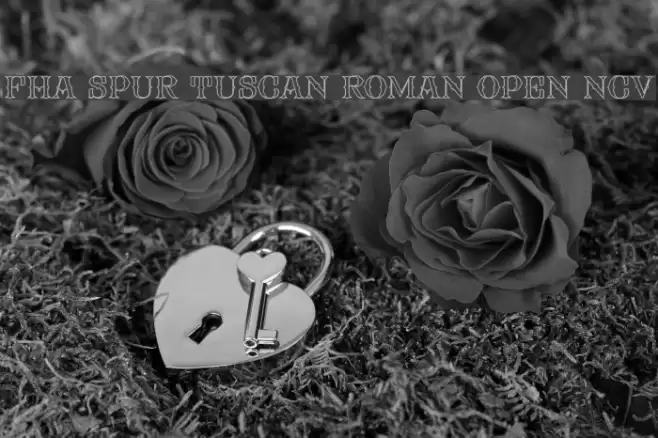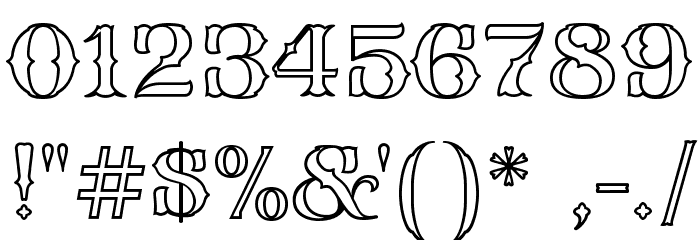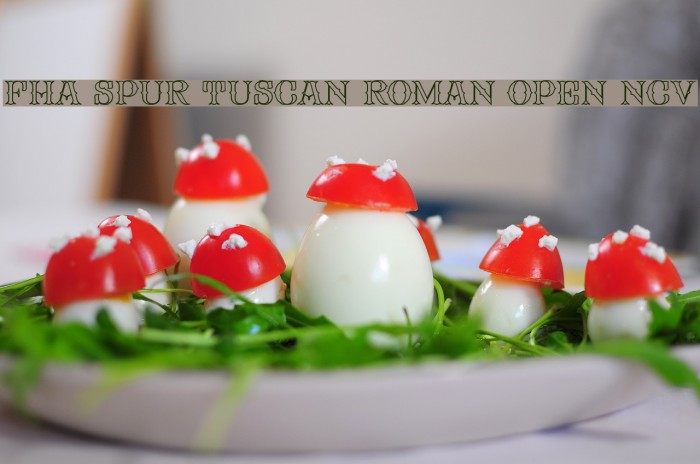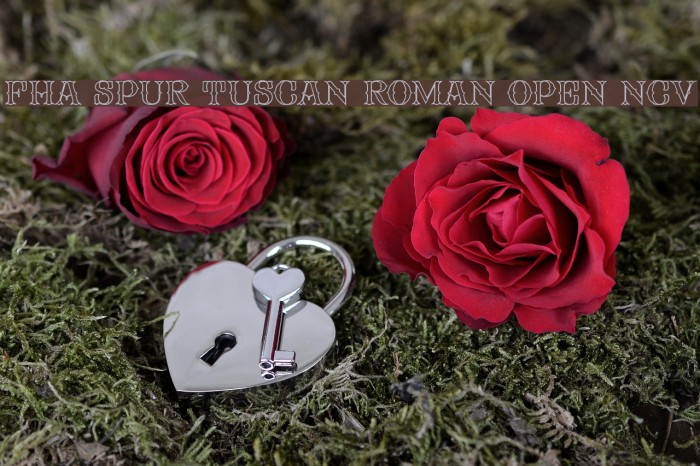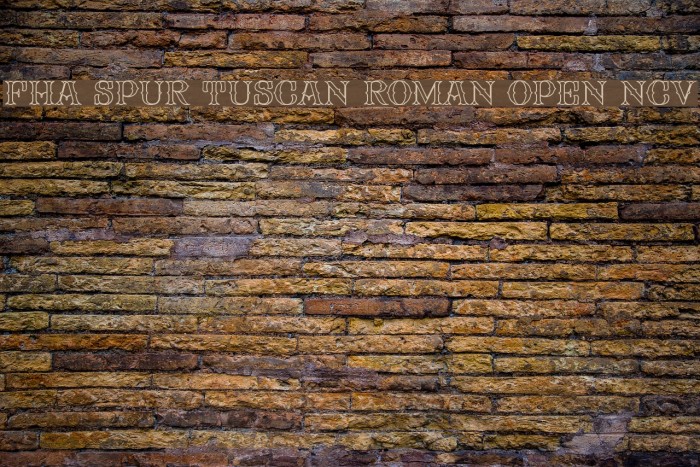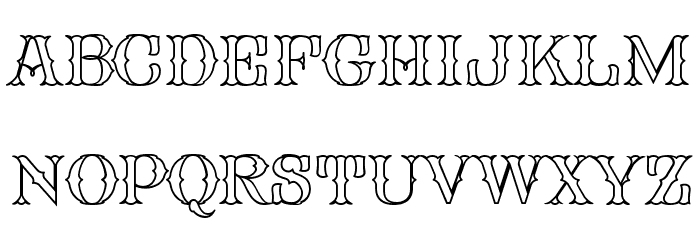
FHA Spur Tuscan Roman Open NCV Font
FHA Spur Tuscan Roman Open NCV Description
This font features a unique and decorative style characterized by its open, outlined letterforms with spurred serifs. The design is reminiscent of vintage Western typography, offering a bold and eye-catching appearance. Each character is meticulously crafted with intricate details, making it stand out in any design. The uppercase and lowercase letters maintain a consistent style, while the numerals and special characters complement the overall aesthetic. This font is perfect for projects that require a touch of nostalgia and flair.
A decorative, vintage-style font with open, spurred serifs and outlined letterforms from Uncategorized fonts.
- Proposed Projects: Ideal for posters, signage, branding, and any design project that seeks a vintage or Western theme.
- Overall Style: Vintage